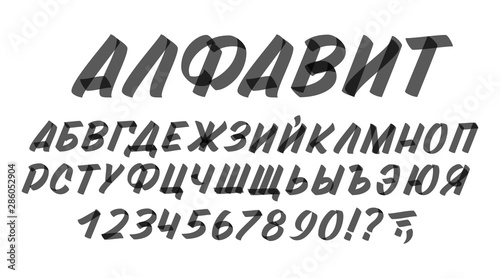
Hand drawn cyrillic typeface on white background. Brush sign painted vector characters: lowercase and uppercase. Typography russian alphabet for your designs: logo, typeface, card